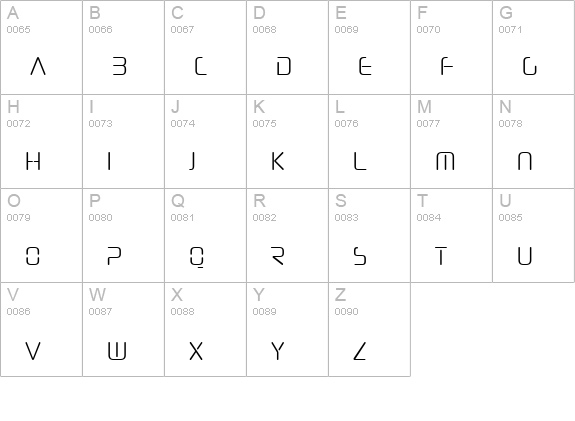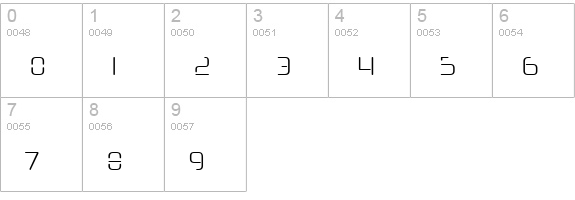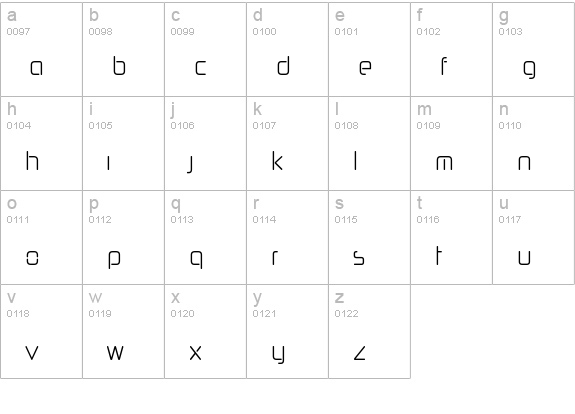
Neuropol Nova Cnd Lite Font Details
Neuropol Nova Cnd Lite font is a sleek and futuristic typeface that perfectly combines modernity with simplicity. Its clean lines and geometric shapes make it ideal for various design projects, from tech-related designs to branding and advertising materials. This font exudes a sense of sophistication and professionalism, making it a great choice for those looking to make a bold statement. The best part? Neuropol Nova Cnd Lite font is available for free download at FontsMarket.com. You can easily access this stylish and versatile font without any cost, allowing you to enhance your designs without breaking the bank. Don't miss out on the opportunity to add this stunning typeface to your font collection today!